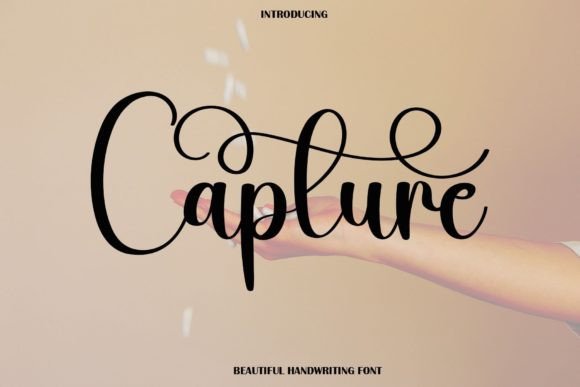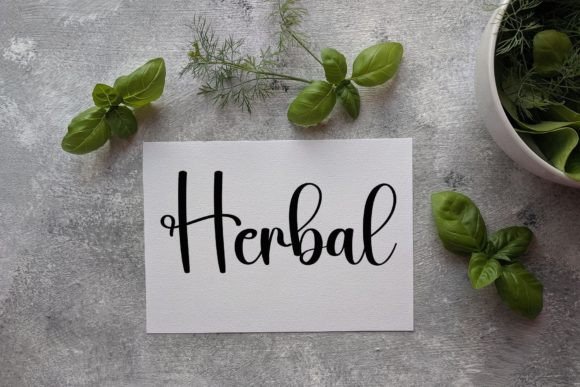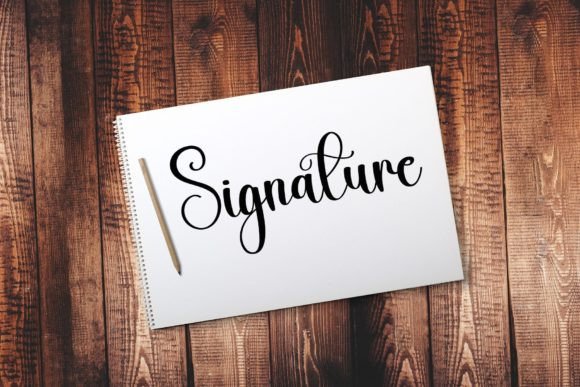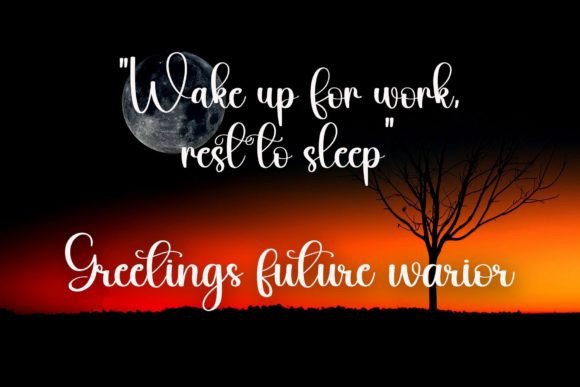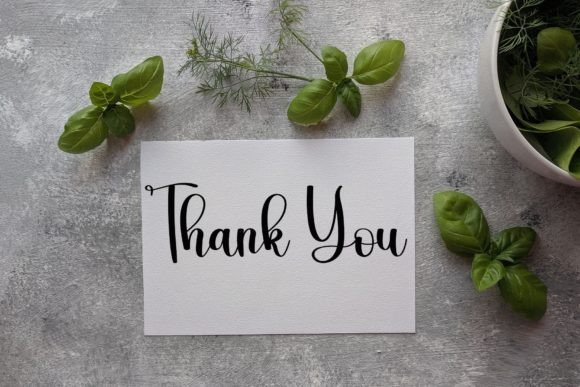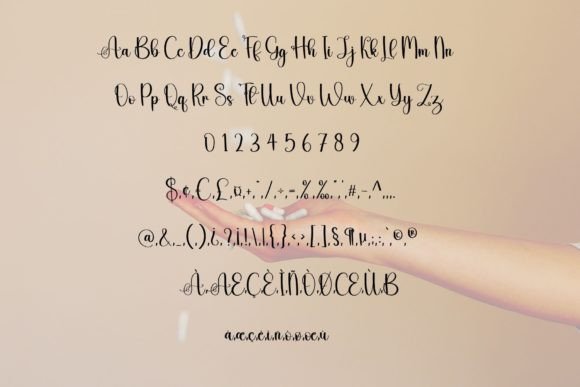
Capture Font
About Capture Font
“Capture” is a font that embodies delicacy and authenticity, making it a perfect choice for crafty projects that require genuine typography. Its well-rounded and delicate handwritten style adds a touch of elegance and warmth, making it suitable for a variety of creative endeavors, including wedding invitations, birthday cards, personal branding, and elegant logos.
**Genuine Craftsmanship**: “Capture” is crafted with meticulous attention to detail, capturing the essence of authenticity. Its delicate strokes and well-rounded characters reflect genuine craftsmanship, adding a sense of charm and personality to your projects. This font is particularly well-suited for designs that aim to evoke a sense of handmade artistry and sincerity.
**Versatility in Design**: Whether you’re designing romantic wedding invitations, crafting heartfelt birthday cards, establishing a personal brand with a touch of elegance, or creating a sophisticated logo, “Capture” adapts seamlessly to various design contexts. Its versatility allows you to experiment with different styles and themes, ensuring your projects have a timeless and genuine appeal.
**Perfect for Crafty Projects**: Crafty projects demand typography that feels authentic and handcrafted, and “Capture” fulfills this requirement beautifully. Its genuine and well-rounded design enhances the overall aesthetics of crafty creations, making it a popular choice among DIY enthusiasts, artisans, and designers working on handmade products and crafts.
**Elegance and Warmth**: The elegance of “Capture” lies in its warm and delicate appearance. Its well-rounded characters exude sophistication, making it ideal for projects that require a touch of refinement. Whether you’re designing elegant logos or crafting invitations for special occasions, this font adds a sense of grace and warmth to your designs.
In summary, “Capture” is more than just a font; it’s a tool that adds a touch of authenticity and elegance to your crafty projects. Its delicate and well-rounded handwritten style makes it a valuable asset for any creative endeavor, transforming ordinary designs into heartfelt and genuine creations. Let “Capture” be your creative companion, enhancing your wedding invitations, birthday cards, personal branding, elegant logos, and other crafty endeavors with its timeless charm and warmth.